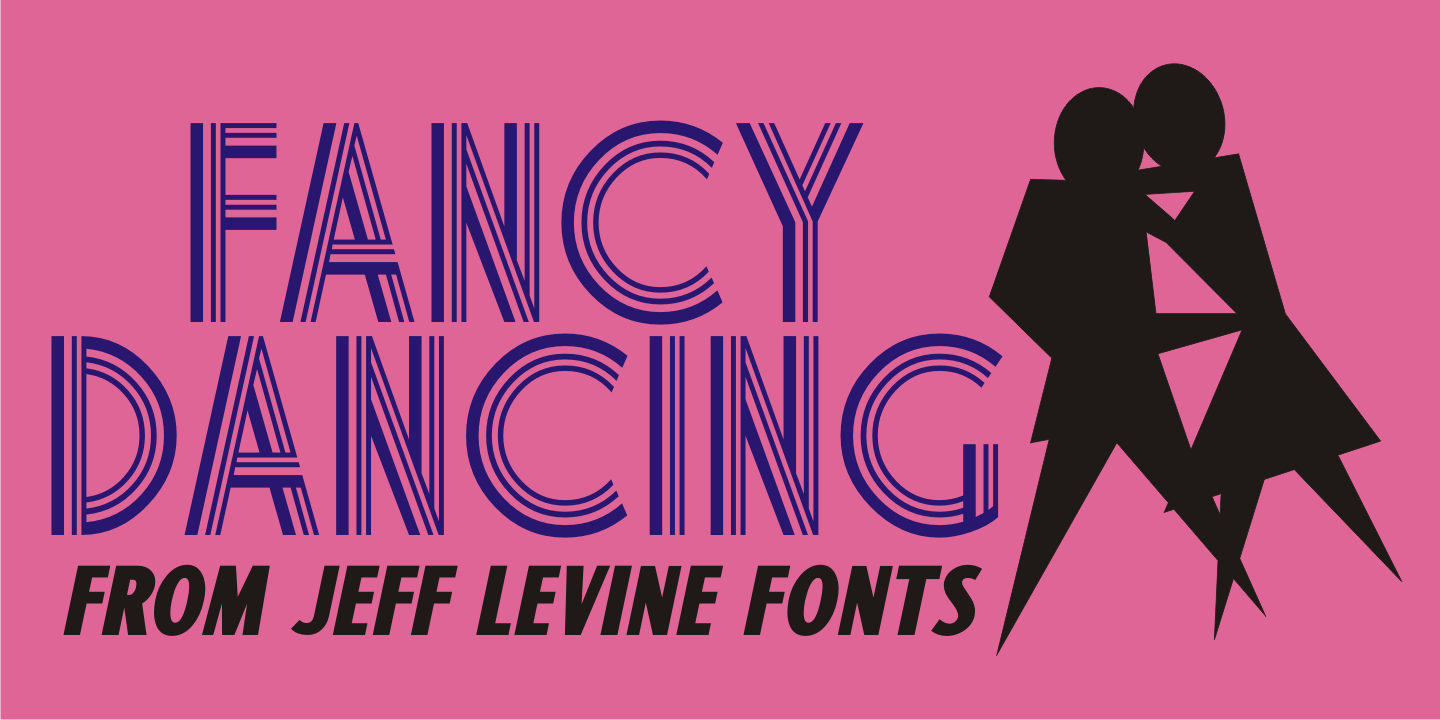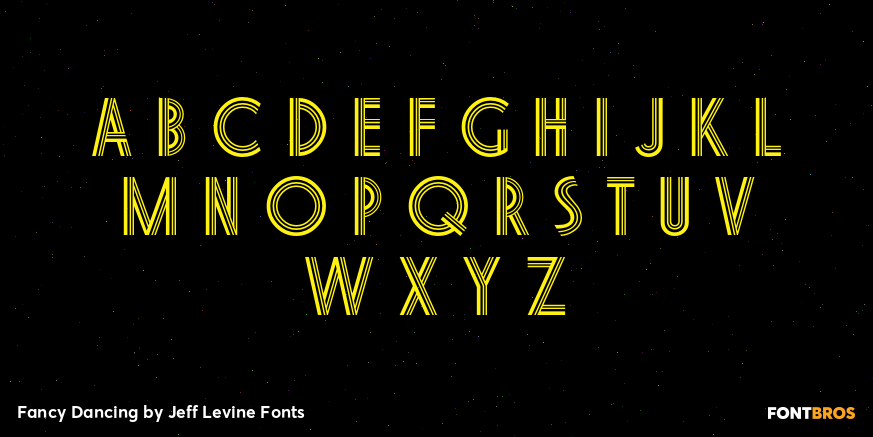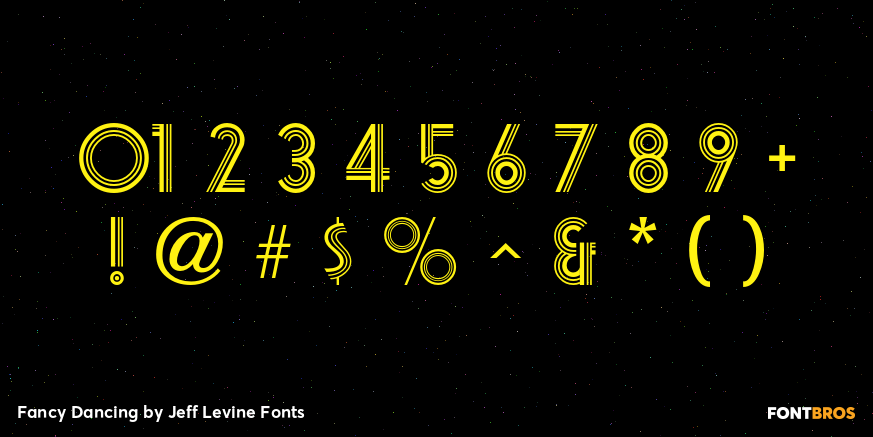
Fancy Dancing
The 1938 movie musical 'Carefree” starring Fred Astaire and Ginger Rogers featured the song 'Change Partners” by Irving Berlin.
A copy of the sheet music for this song had the title hand lettered in a wonderful tri-line design that has been recreated in the digital typeface Fancy Dancing JNL.